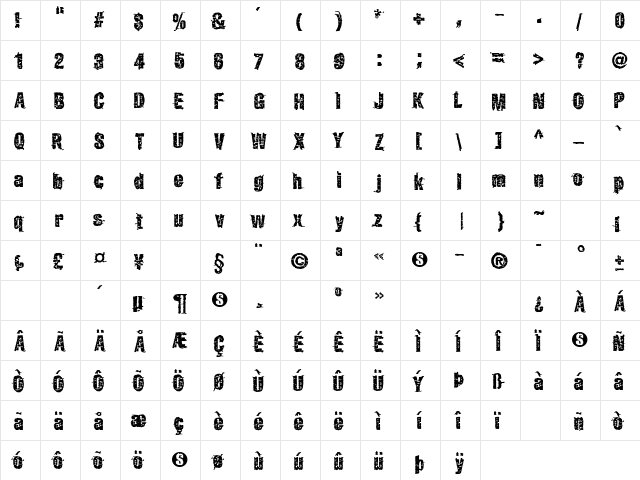
GarbageG Regular
Design Context for GarbageG Typeface
GarbageG is a composed and adaptable typeface that performs quietly and consistently across a wide range of design contexts.